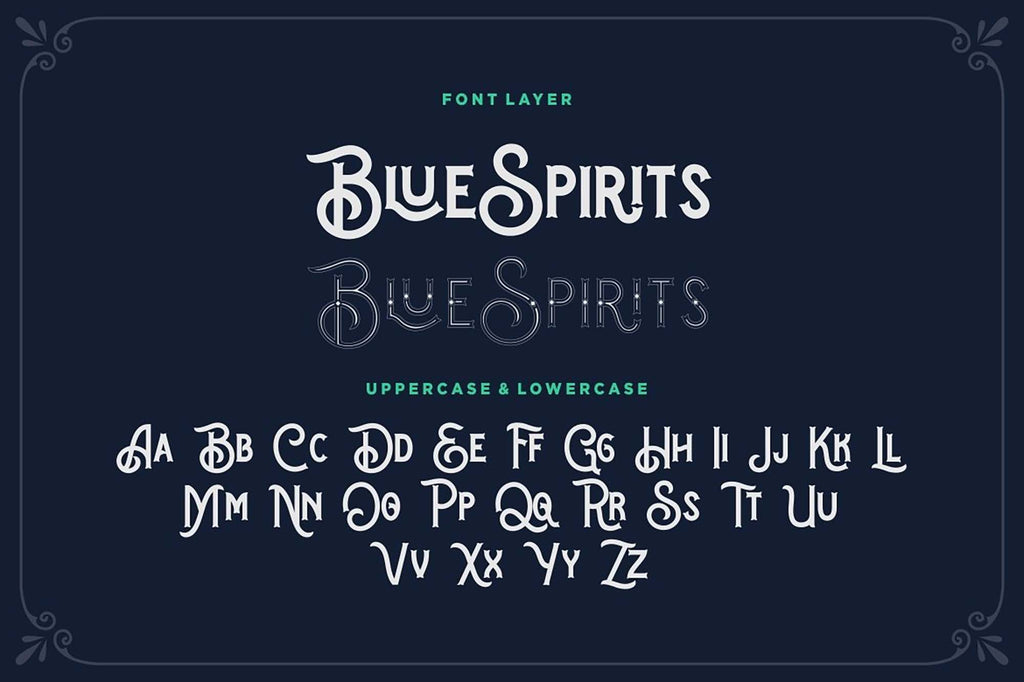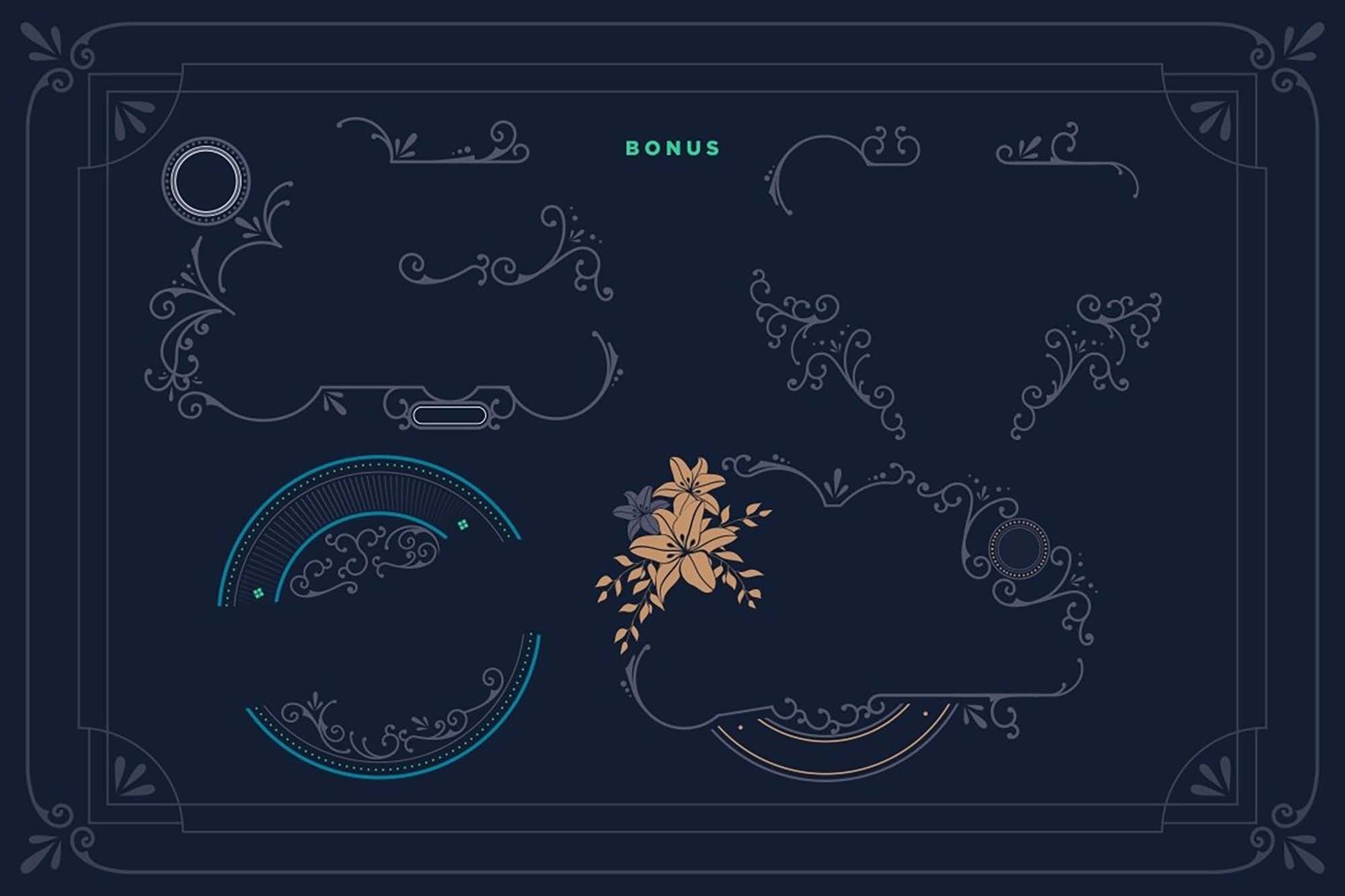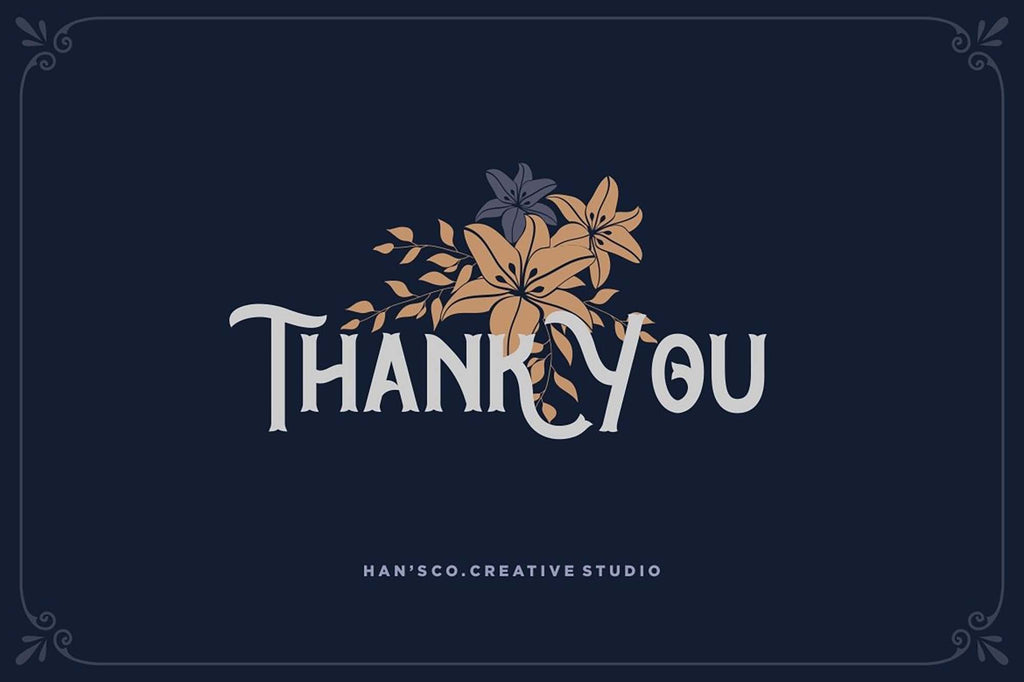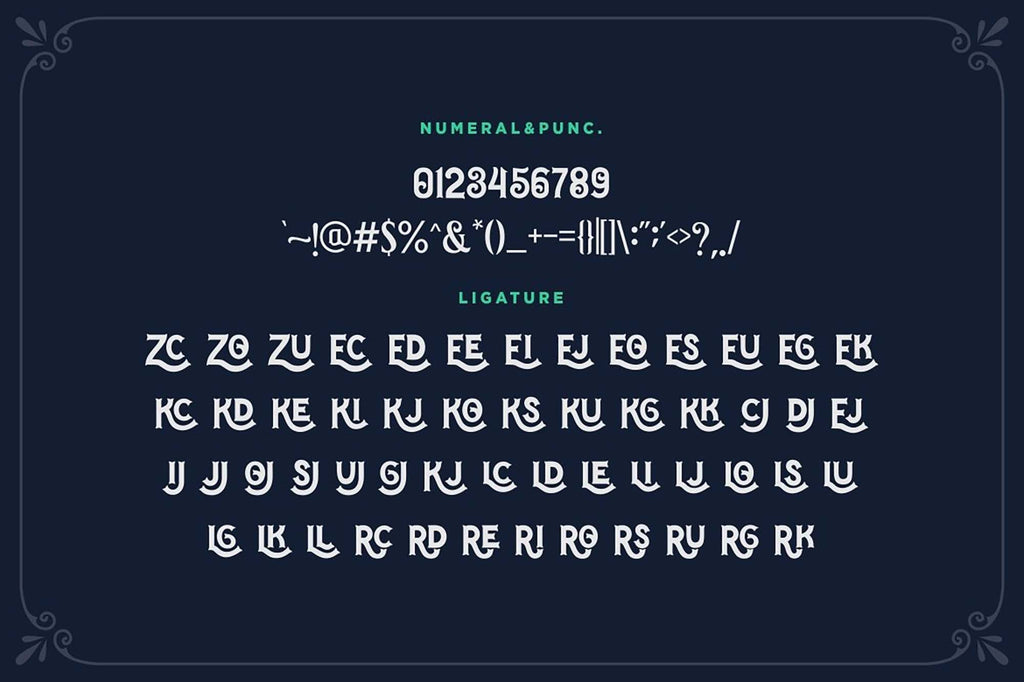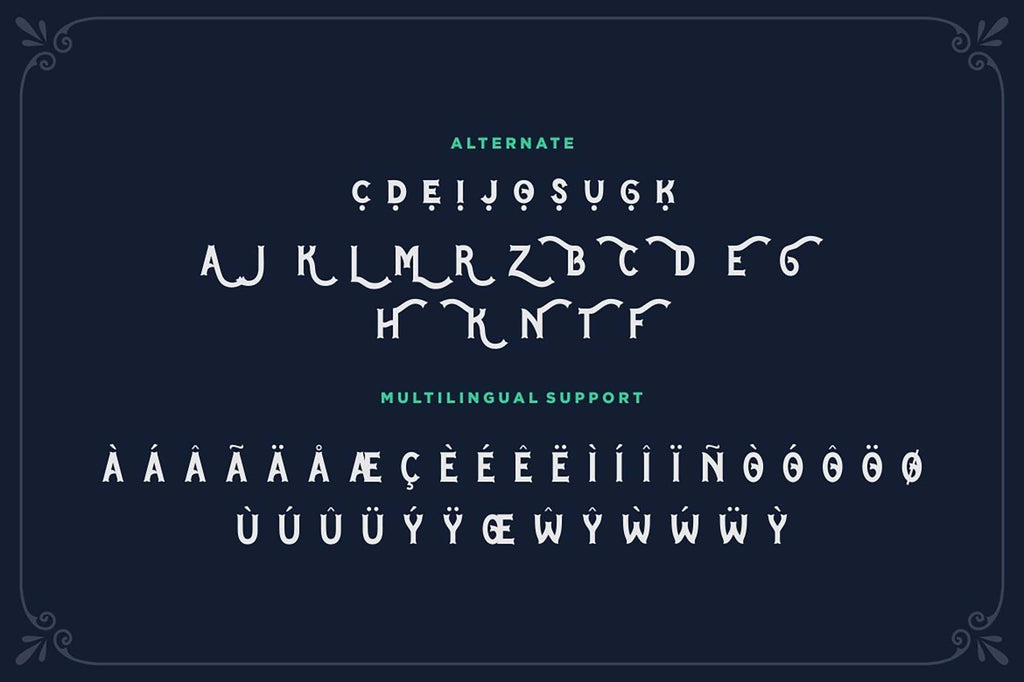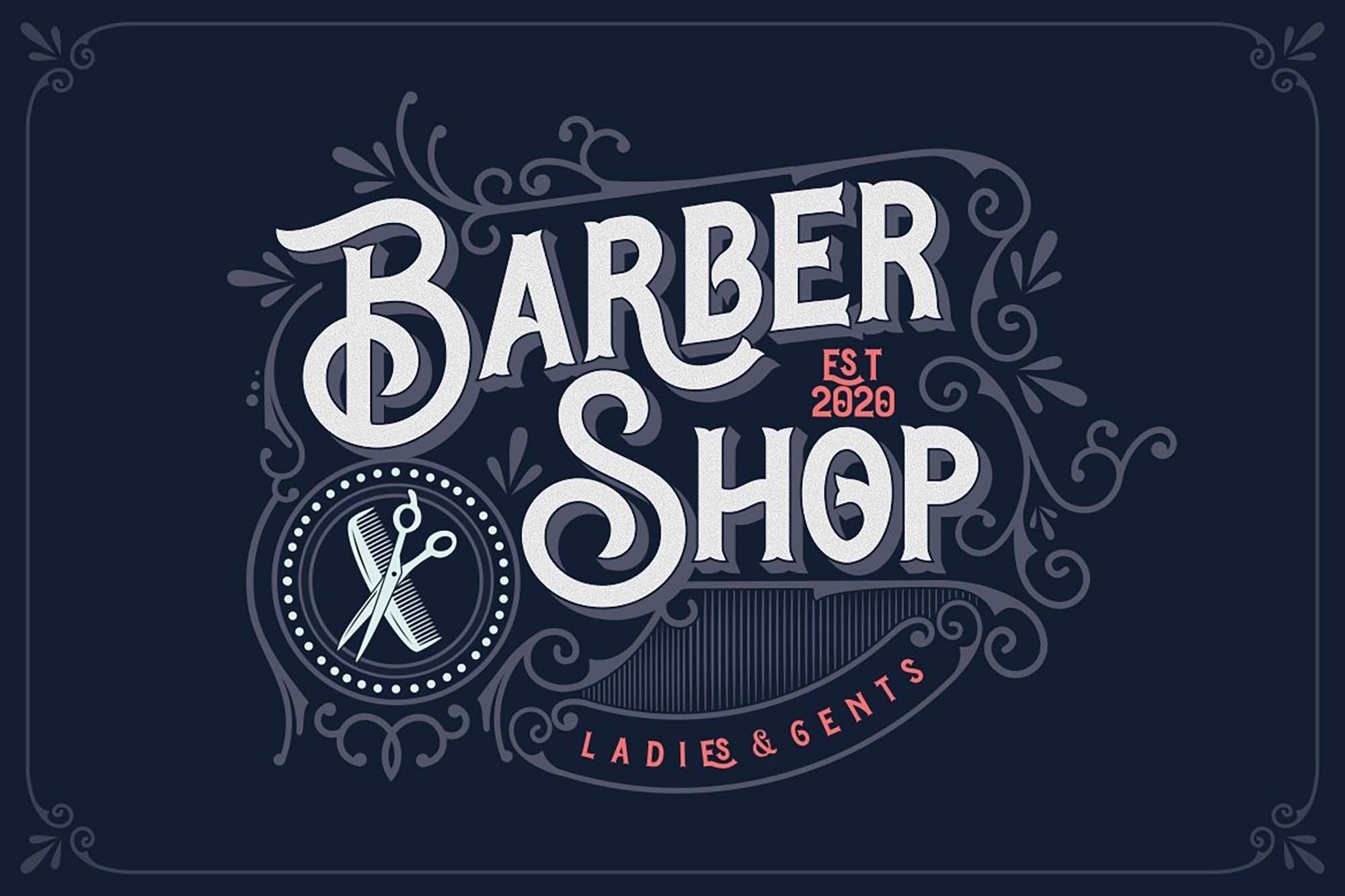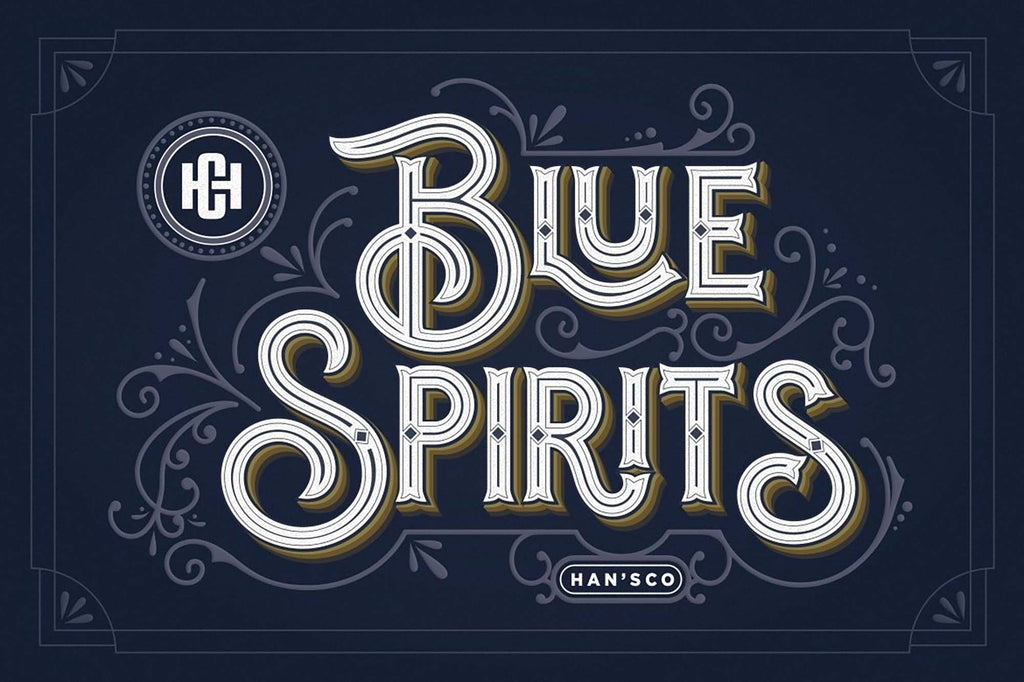
Blue spirits are creatures of wonder, forms of life that touch the realm of magic. And we’re not sure where they come from or where they go, so we decided to live in the moment with this display font from HansCo.
Blue Spirits is an original display font with a vintage feel. Its clean shapes and elegant displays hold an artistic feel, a necessary presentation for posters and flyers. You can also use Blue Spirits for logotypes, labels, headlines, book and magazine covers, and storefronts. Picture this display font in the brightest of colors or set your texts against contrasting backgrounds that allow the details of each character from the standard letters to the stylistic alternates and ligatures to be evident. But the charm of this font doesn’t end here since it also features ornamental graphics that you can use to create logos and signs, so you can present them to clients or use the results for commercial projects after downloading the premium version.